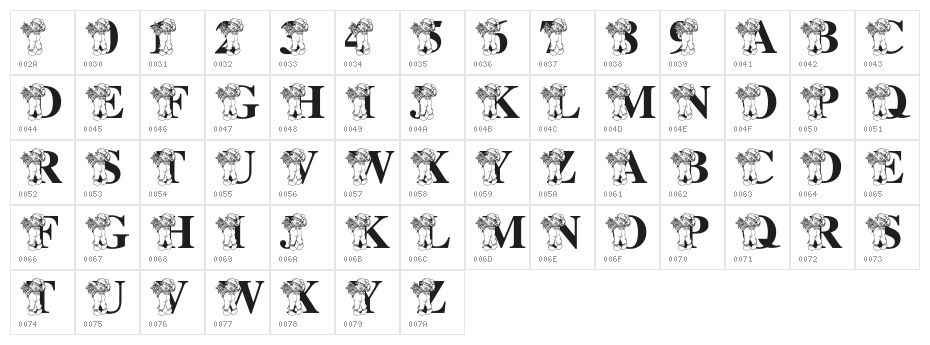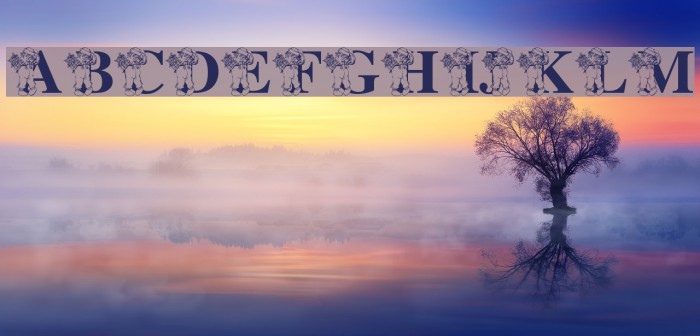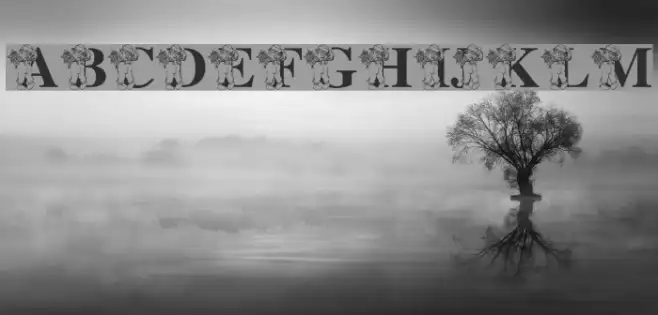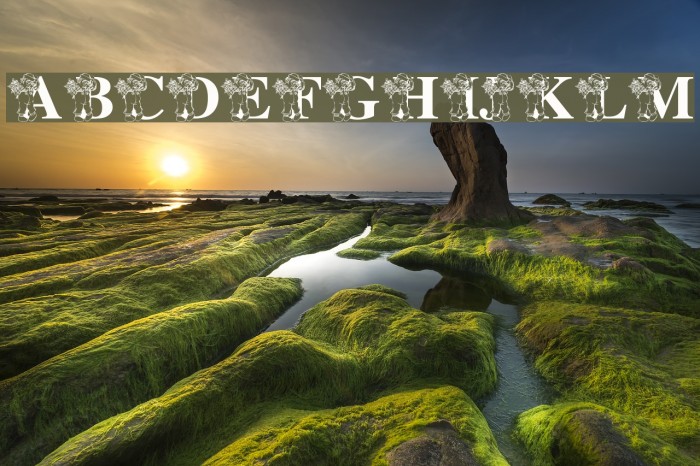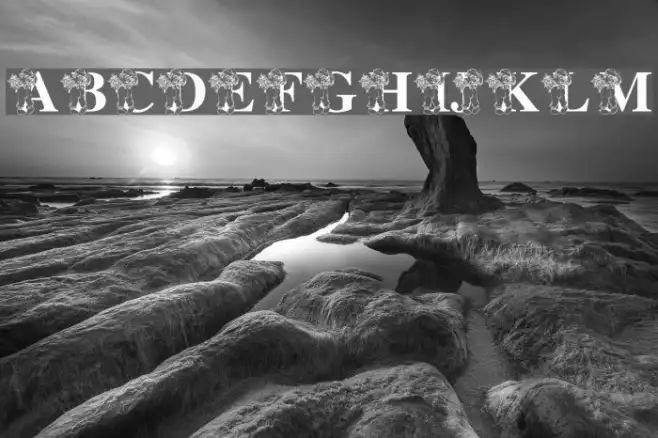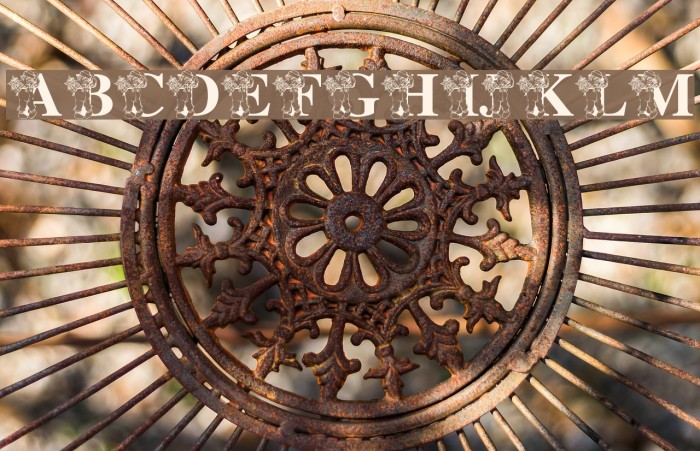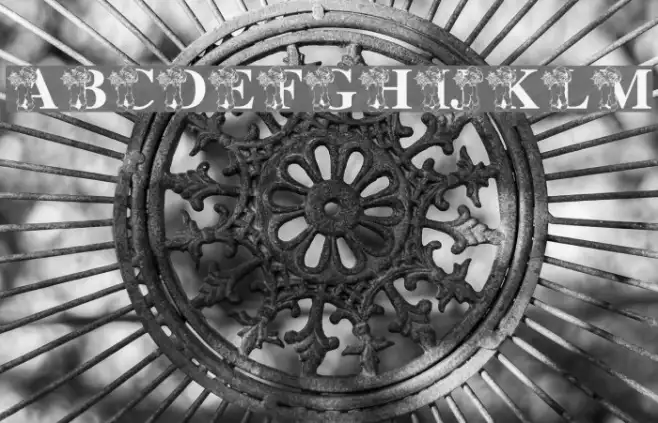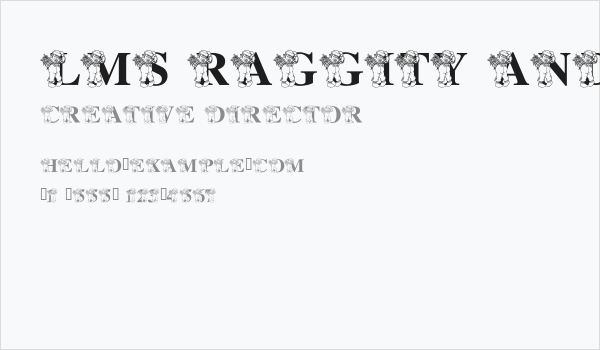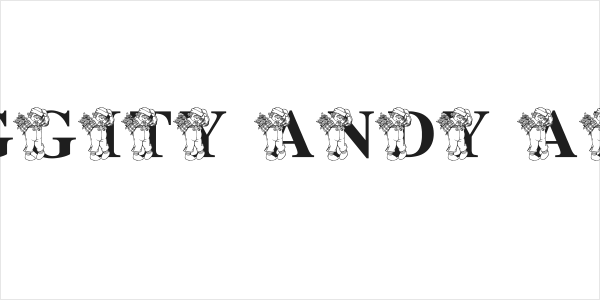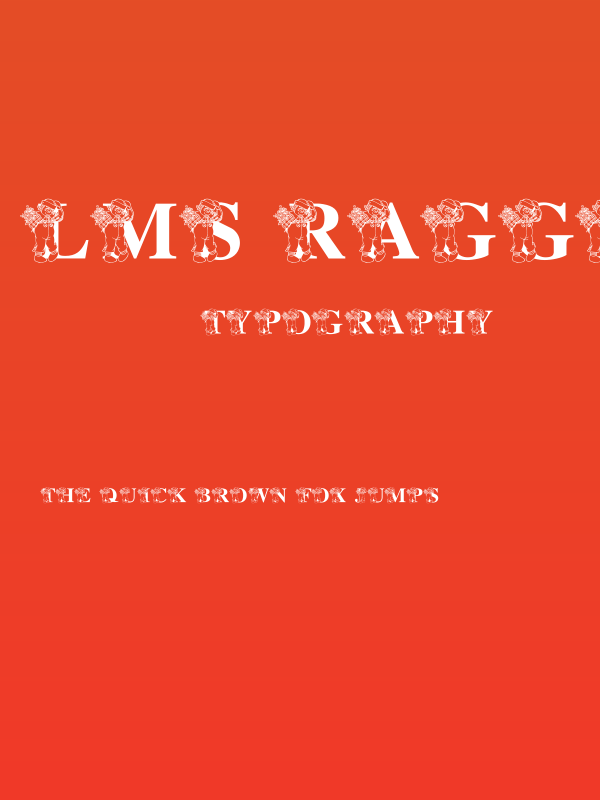
LMS Raggity Andy Alphabet Font
LMS Raggity Andy Alphabet Description
This font is a playful and decorative typeface featuring a whimsical character integrated into each letter and number. The design includes a cartoon figure, adding a unique and charming element to the otherwise bold and serif-style letters. The uppercase and lowercase letters are consistent in style, maintaining a cohesive look throughout the alphabet. The numbers follow the same design principle, ensuring uniformity. This font is ideal for projects that require a fun and engaging visual element, such as children's books, playful branding, or creative invitations.
| Proposed Projects | Children's books, playful branding, creative invitations, educational materials. |